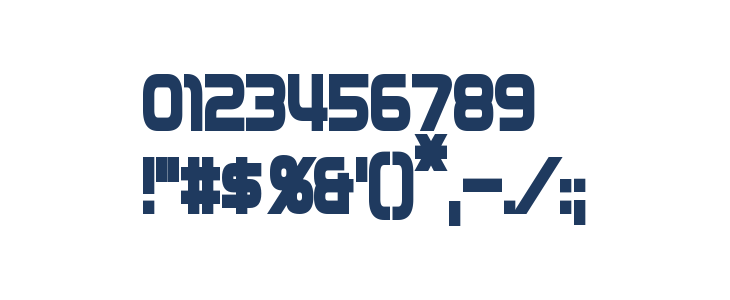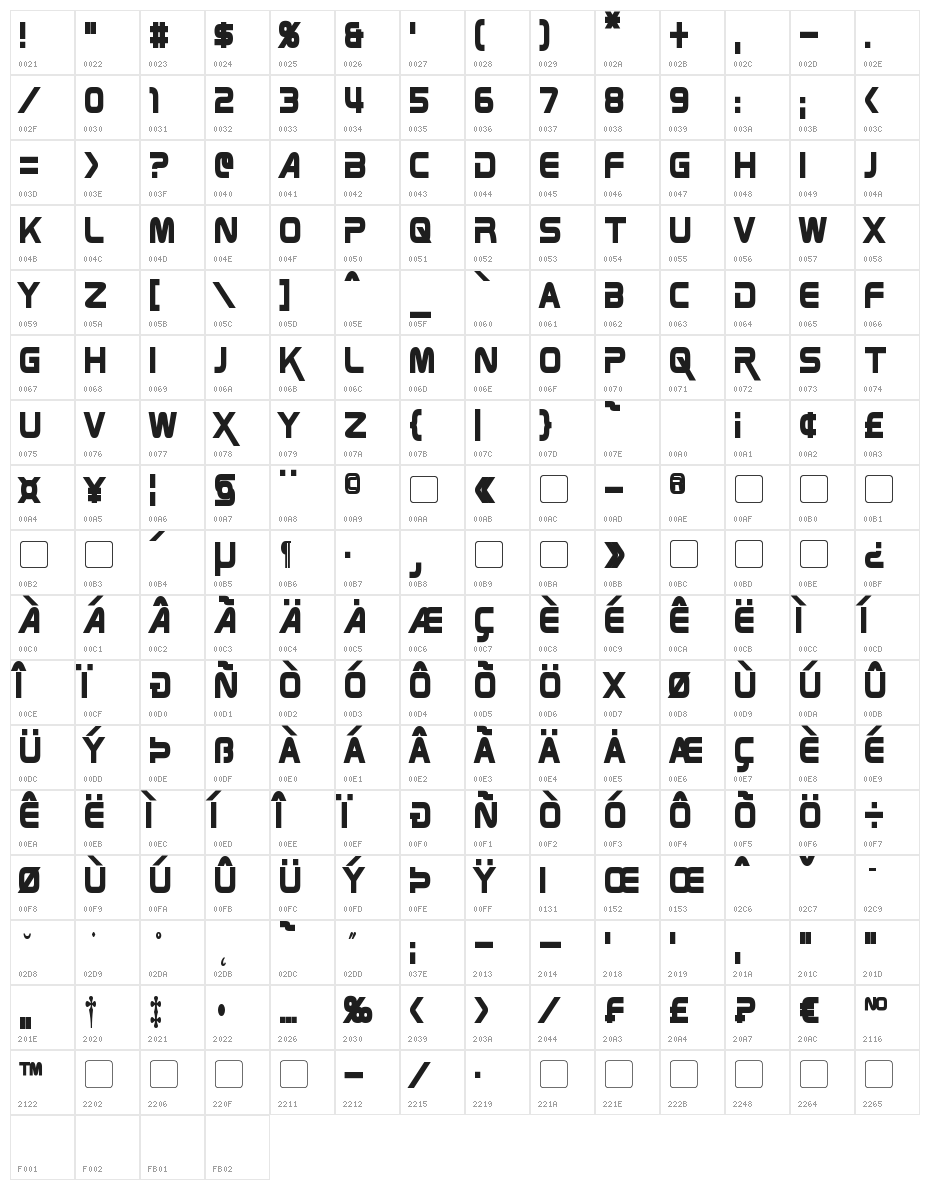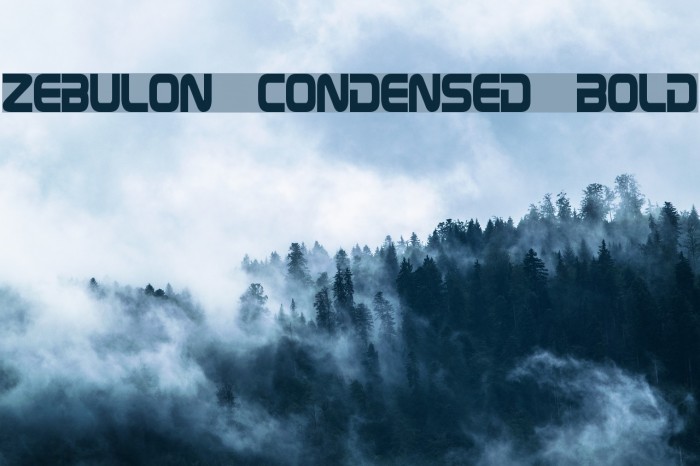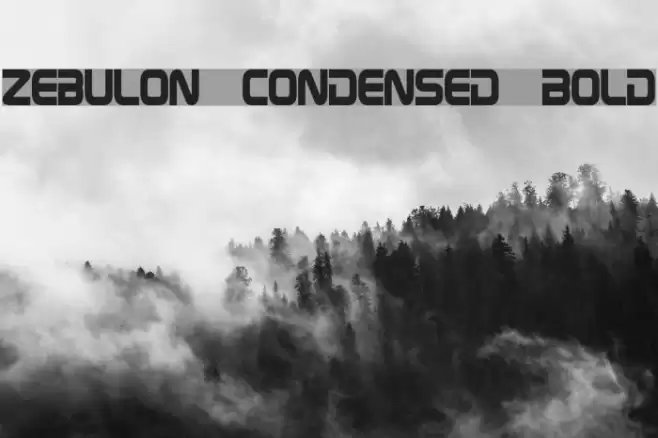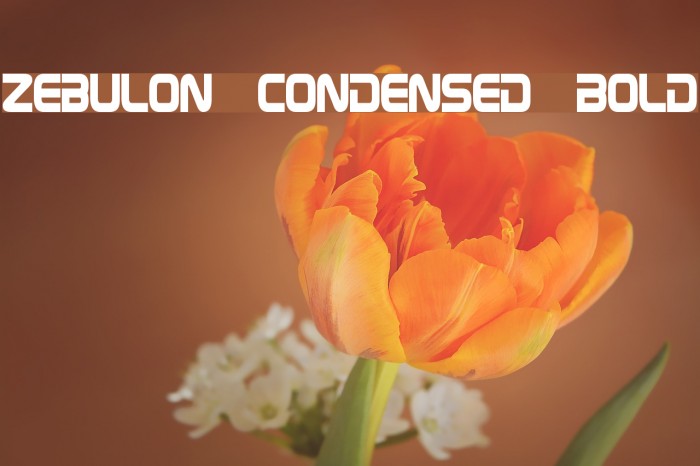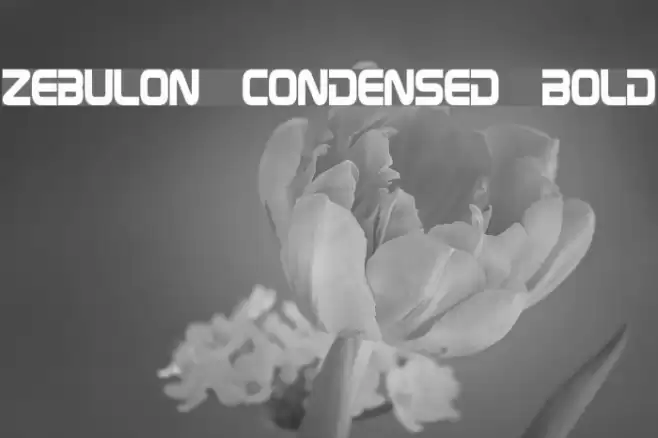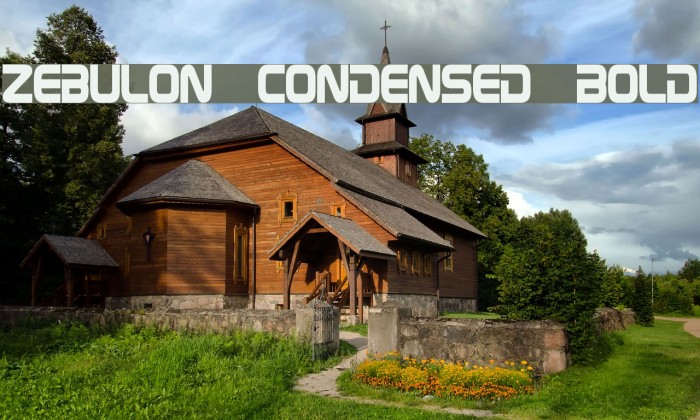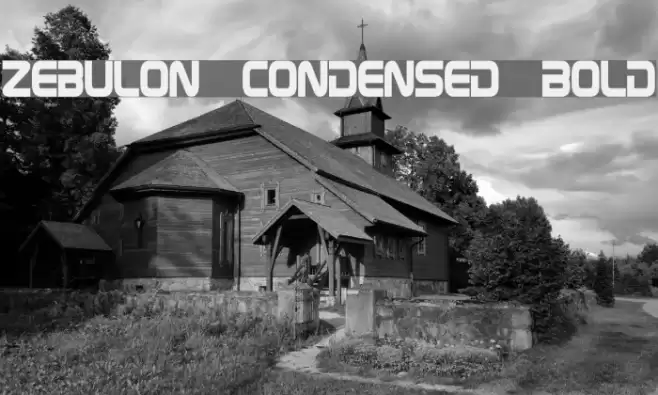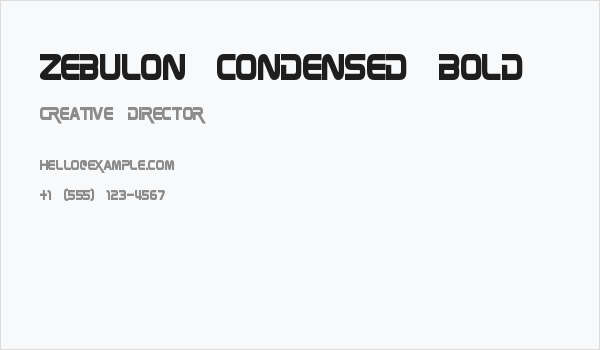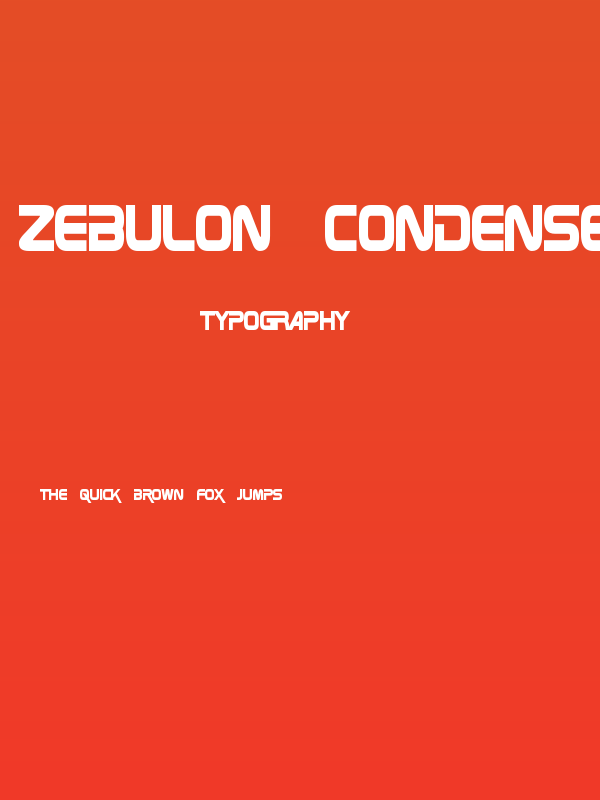
Zebulon Condensed Bold Font
Zebulon Condensed Bold Description
This font features a bold and condensed style, characterized by its strong geometric shapes and sharp angles. The uppercase letters are particularly striking, with a futuristic and industrial feel. The lowercase letters maintain the same boldness, ensuring consistency across text. Numbers and special characters are equally robust, making them stand out in any design. The font's condensed nature allows for efficient use of space, making it ideal for headlines and titles where impact is essential. Its modern aesthetic is suitable for tech-oriented projects or any design that requires a bold statement.